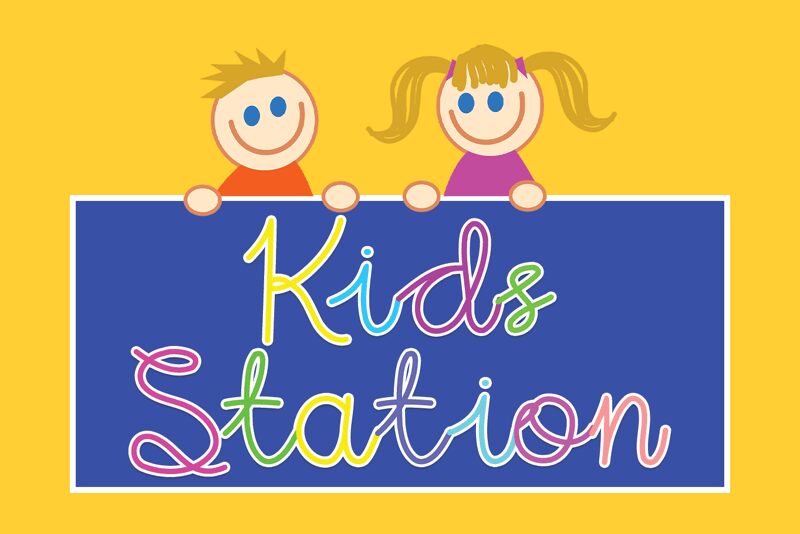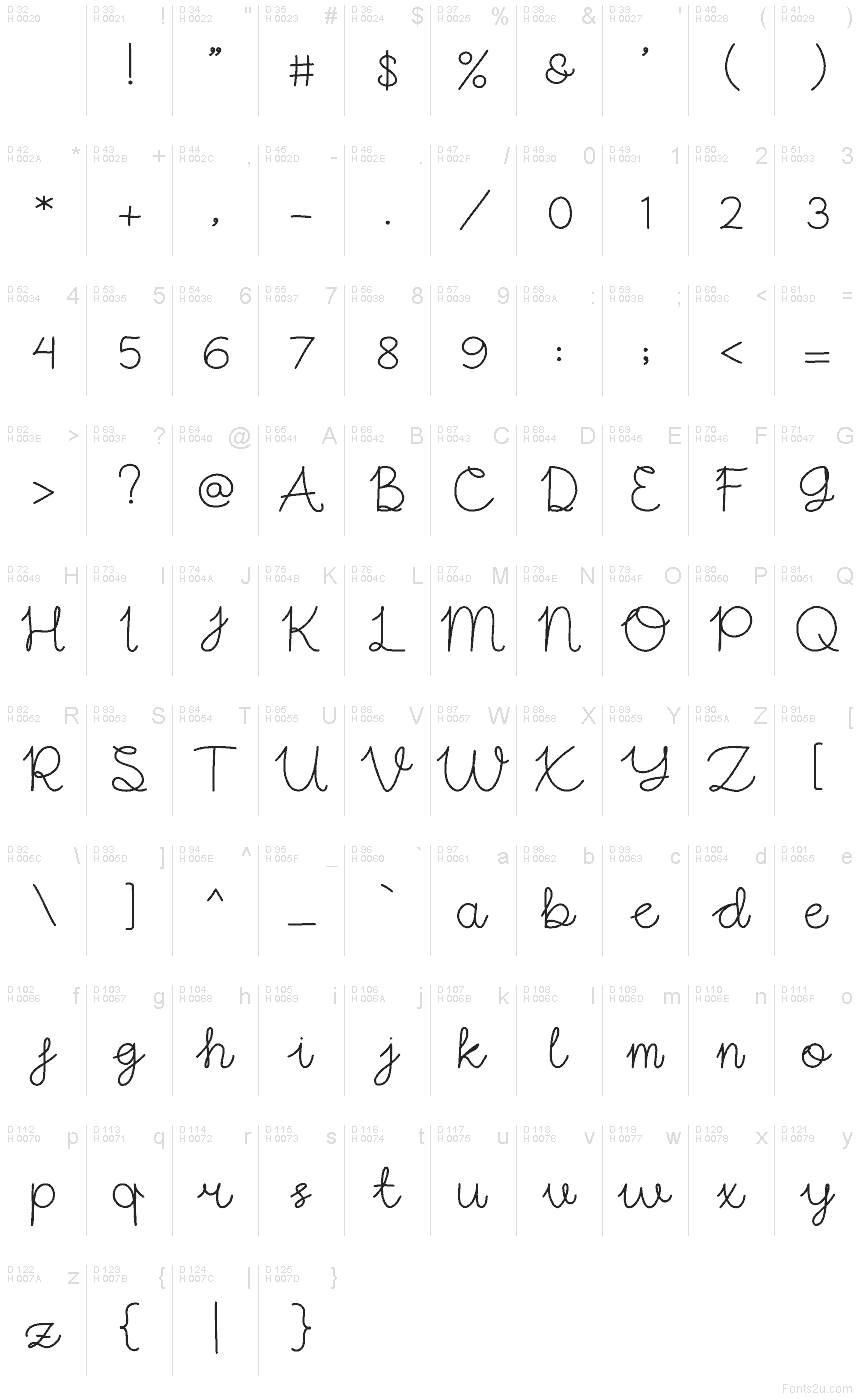
Kids Station
Kids Station is a relaxed and simple handwritten font. It is the best choice for creating eye catching logos, branding and quotes. Every letter has a unique and beautiful touch, which will make your design come alive!